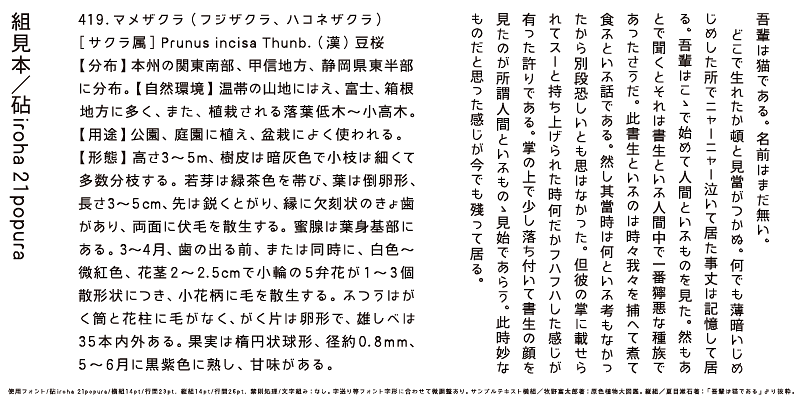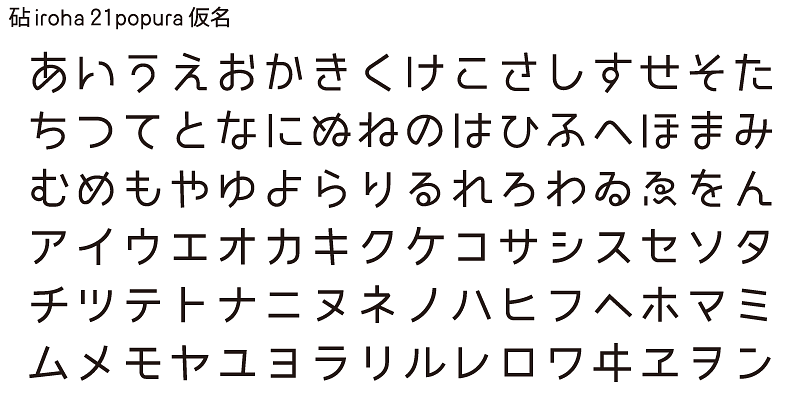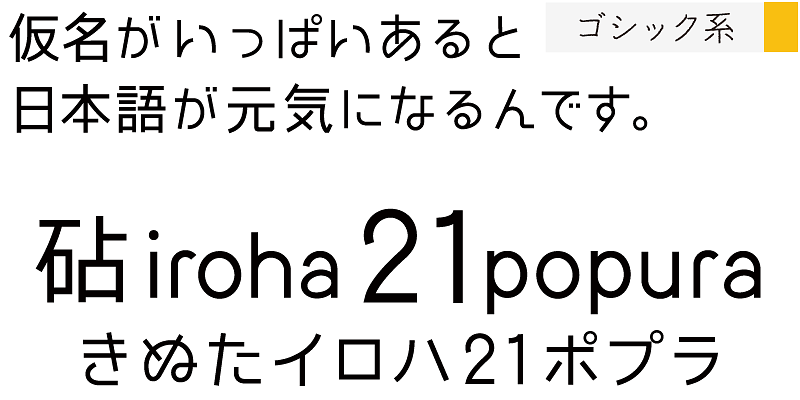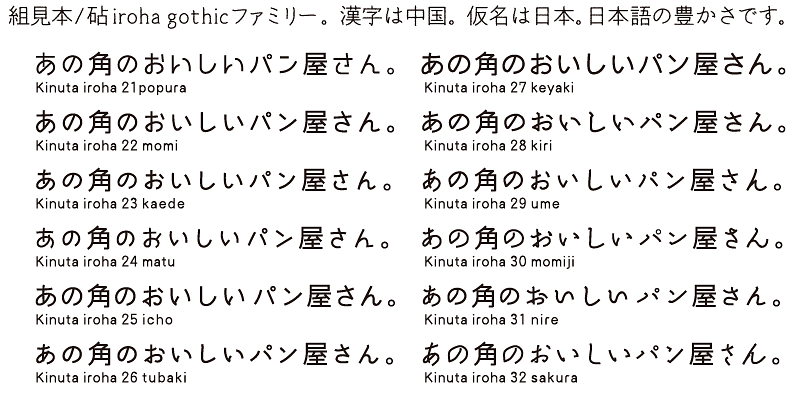
Iroha 21popura’s horizontal and vertical elements were designed to have a “futuristic” look. The enclosed areas of kana characters have circular shapes, which highlight the cuteness of the design.
The same Ideographic (kanji) characters are shared by all the Iroha variations. Kanji characters of Iroha are designed with linear strokes and simple structures. There are 12 kana variants.
One characteristic of the Japanese language is that it has kana syllabic characters. Kana characters were invented in Japan to represent sounds in Japanese and translate texts imported from China into Japanese. Kana characters are needed to create Japanese words and expressions from kanji/Chinese ideographic characters. While there may be ambiguities, these words and expressions exhibit the warmth and gentleness of the lives of people living in the small and densely populated land of Japan.
Kinuta Font Factory’s believes that kana characters are the origin of written words in Japanese, and we think that improving kana characters will make Japanese text more attractive. On average, 60% of Japanese text consists of kana characters – changing the shape of these characters changes the visual appearance of the text. The possibilities for typographic expression using simple, dynamic and curvilinear kana characters are vast, and the richness of Japanese text depends on kana characters. This is the reason why Kinuta Font Factory offers many variations of kana typefaces.